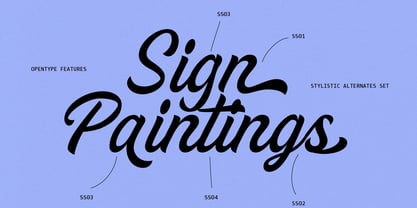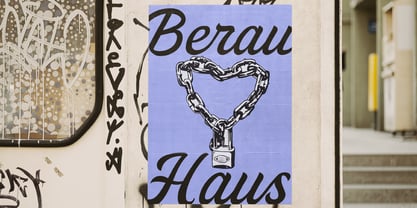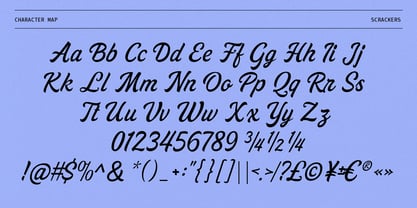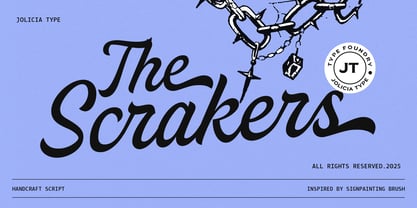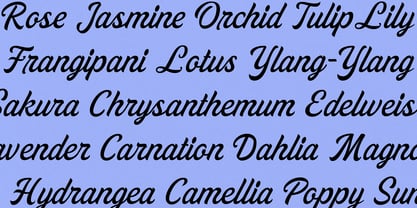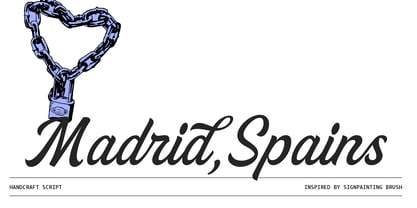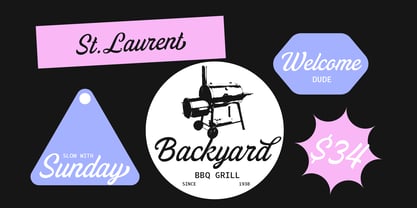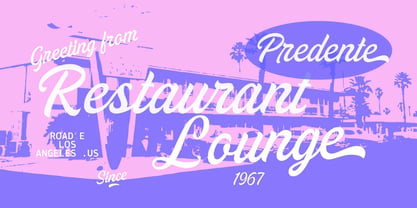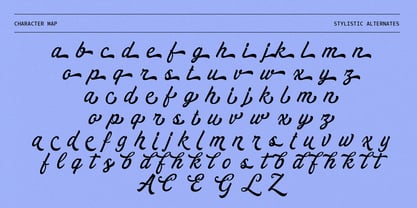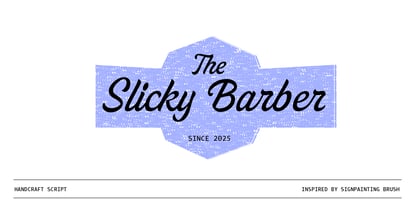
Scrakers
by Jolicia Type
The Scrakers Font Family was designed by Laire Banyu and published by Jolicia Type. Scrakers contains 1 styles. More about this family
Scrakers is a bold script typeface inspired by classic sign painting brush lettering, designed to deliver a strong visual impact with an authentic hand-painted feel. Featuring expressive brush strokes, dynamic flow, and a confident rhythm, Scrakers is ideal for branding, logo design, packaging, posters, apparel, signage, and eye-catching headlines. This script font includes a rich collection of OpenType features, such as stylistic alternates, contextual alternates, ligatures, and multilingual support, providing designers with full creative control to craft unique and natural lettering compositions. With its extensive stylistic options, Scrakers adapts beautifully to both vintage-inspired and modern design projects, making it a versatile choice for various applications.
Designers: Laire Banyu
Foundry: Jolicia Type